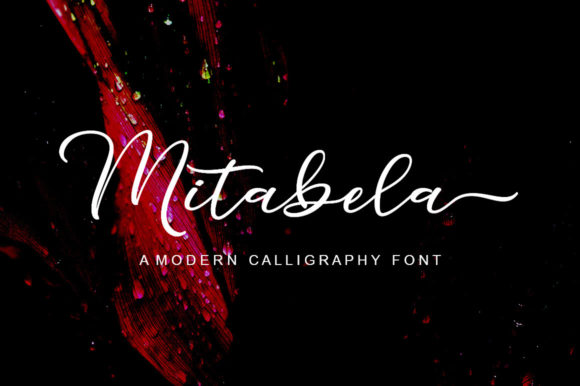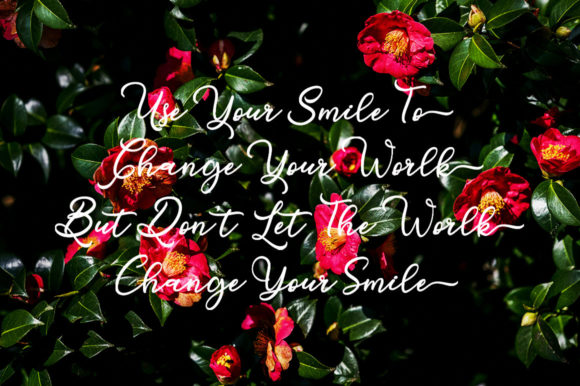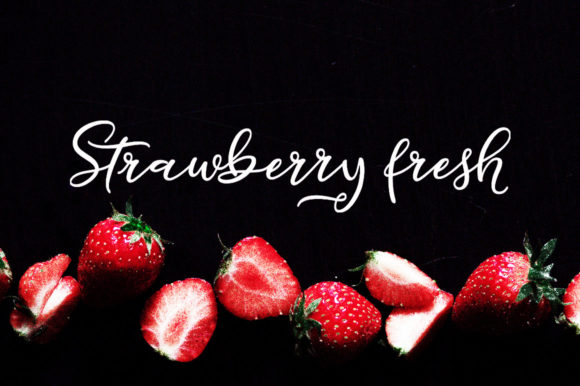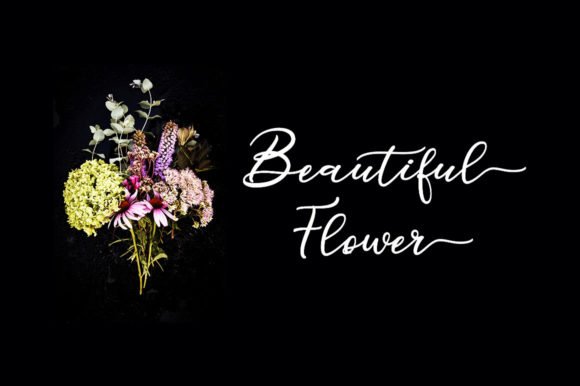
About Mitabela Font
Mitabela is a sophisticated and exquisitely designed script font that radiates elegance and charm. Its graceful strokes and carefully crafted characters make it a perfect choice for a wide range of design projects. Whether you’re creating wedding invitations, thank you cards, inspirational quotes, or professional branding materials, Mitabela adds a touch of refined beauty that elevates your creations.
The fluid and intricate lines of Mitabela’s letters create a sense of intricate craftsmanship, reminiscent of calligraphy and handwritten artistry. This font is particularly well-suited for projects that require a personal and intimate touch, such as wedding invitations and greeting cards. Its ability to convey emotion and sentiment through its elegant curves and loops makes it a standout choice for capturing special moments and feelings.
Mitabela’s versatility shines through in its compatibility with various design styles and themes. Whether your design concept is traditional, contemporary, or somewhere in between, this font effortlessly adapts to your vision, enhancing the overall aesthetic with its timeless allure. Its ability to strike a balance between sophistication and approachability ensures that it resonates with a wide range of audiences.
In addition to its visual appeal, Mitabela is also highly legible, ensuring that your message comes across clearly and effectively. The font’s careful spacing and balanced proportions make it easy to read, even in smaller sizes, without sacrificing its elegant and graceful appearance.
Furthermore, Mitabela’s usage extends beyond print materials; it translates beautifully into digital designs as well. From social media graphics to website banners, the font retains its captivating charm and adds an air of sophistication to your online presence.
In summary, Mitabela is a stylish and incredibly elegant script font that brings a touch of sophistication to a variety of design projects. Its exquisite details, versatility, and ability to convey emotion make it an ideal choice for wedding invitations, thank you cards, quotes, logos, and more. With Mitabela as part of your design toolkit, you can infuse your creations with a sense of timeless beauty and refined elegance.